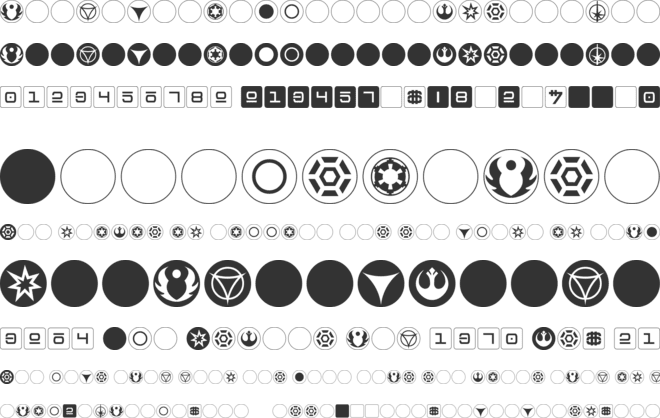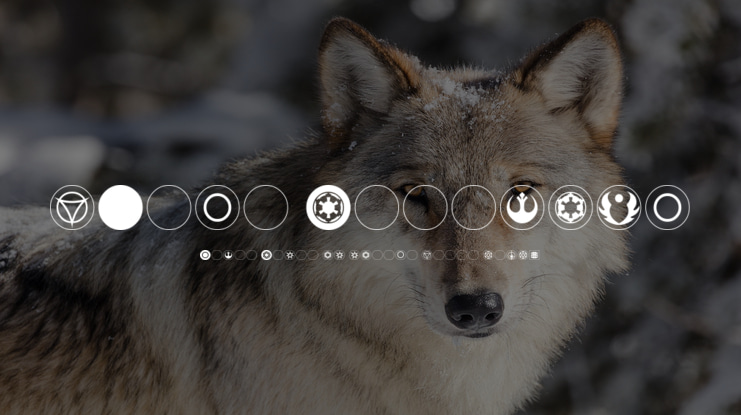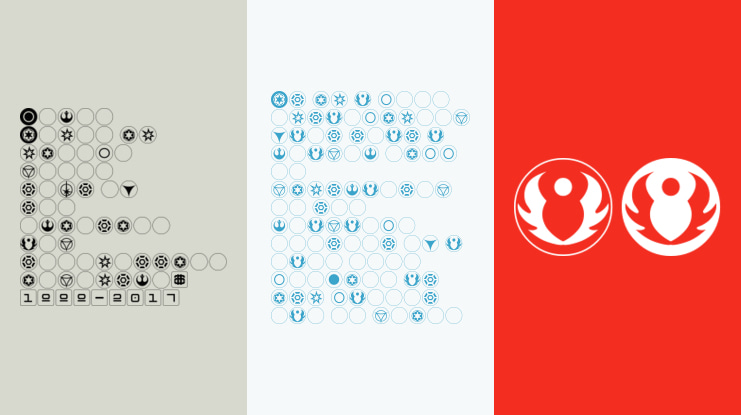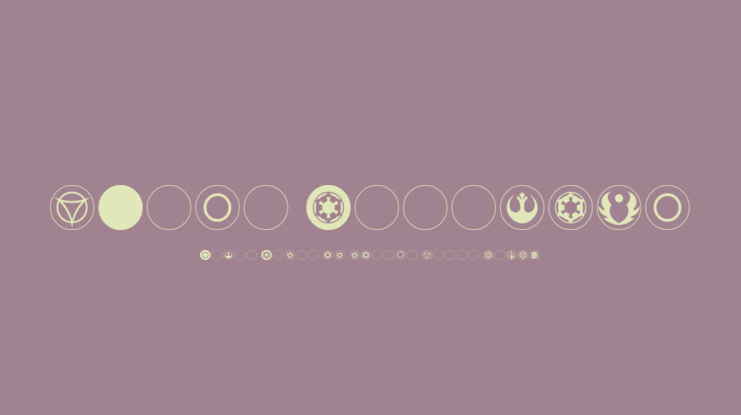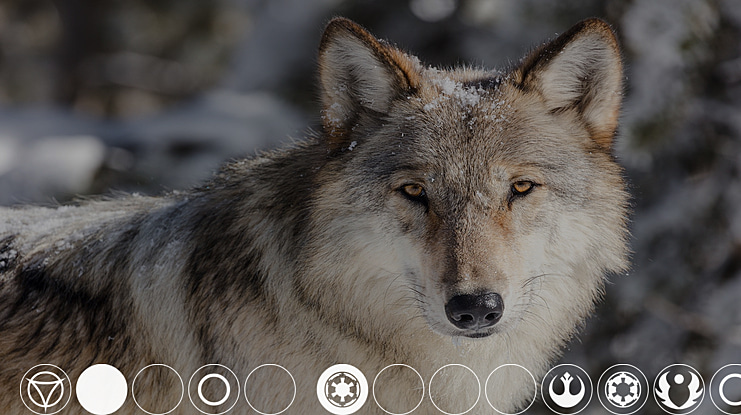
dPoly Imperial Font
Neale Davidson
This download includes the dPoly Imperial font, a new version of the popular dPoly Hexagon font which is designed specifically for fans of the Star Wars and similar series of role-playing games. The font includes “Aurebesh” style six-sided die in white and black, fate symbols, blank d12 and d8 symbols, and numerous Imperial and Republic symbols to make gaming in the galaxy a bit easier.